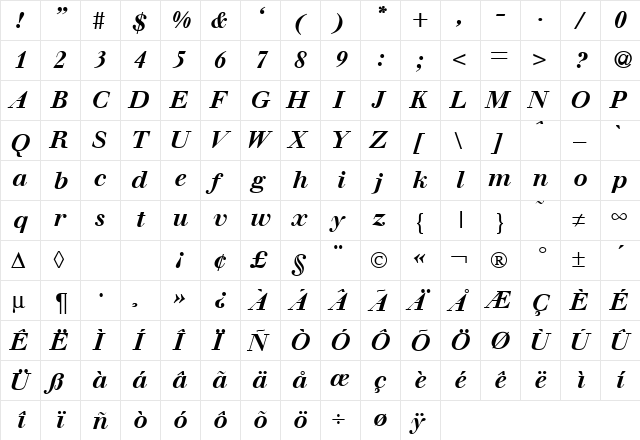
WalbaumDisplay BoldItalic Font Preview
Design Context for WalbaumDisplay Typeface
WalbaumDisplay brings ornamental detail and strong personality to headlines and identities, where visual impact matters more than quiet functionality. Its italic angle brings a sense of urgency and motion to the letterforms. Its bold stroke weight gives it real presence on the page.
Font Pairing: Pair with a clean neutral sans-serif for body copy to let WalbaumDisplay's character lead without overwhelming the composition.
Pro Tip: Treat WalbaumDisplay as the centrepiece of your typographic hierarchy. One strong heading set in a decorative face can carry an entire layout.